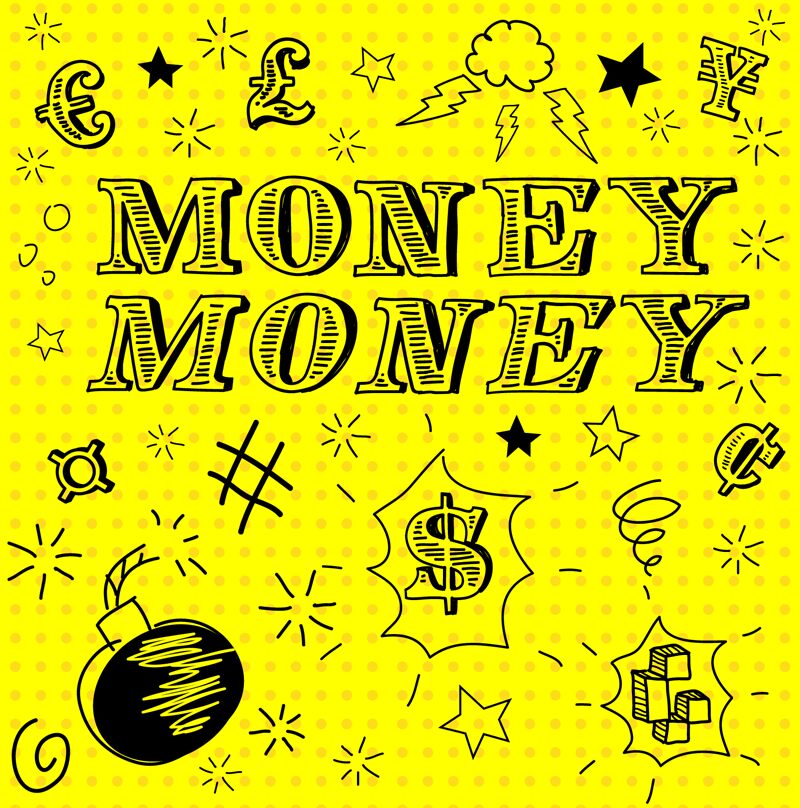
Money Money Regular
Money Money font by Galdino Otten Fonts is an elaborate bold display inspired by Victorian period typefaces. The Victorian themed typeface consists of truly beautiful detailed decorative patterns making it achieve a rich and strong vintage feel. Each glyph is a piece of art for itself and together they build one cohesive artistic look.
As a free display font, Money Money finds its use in many design styles where the old fashioned appeal is what’s needed. Branding names for restaurants offering traditional cuisine, professional business cards, certificates, historical school projects, book covers and titles are only small portion of suggested use cases.